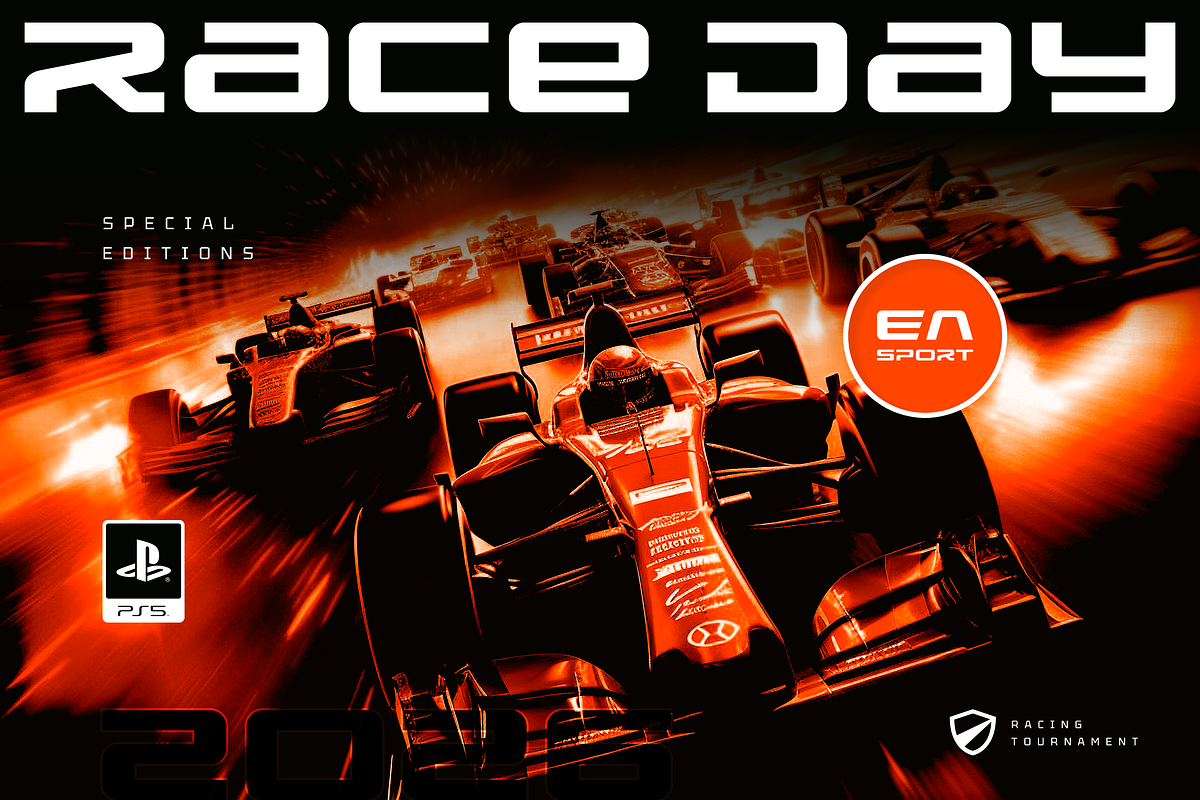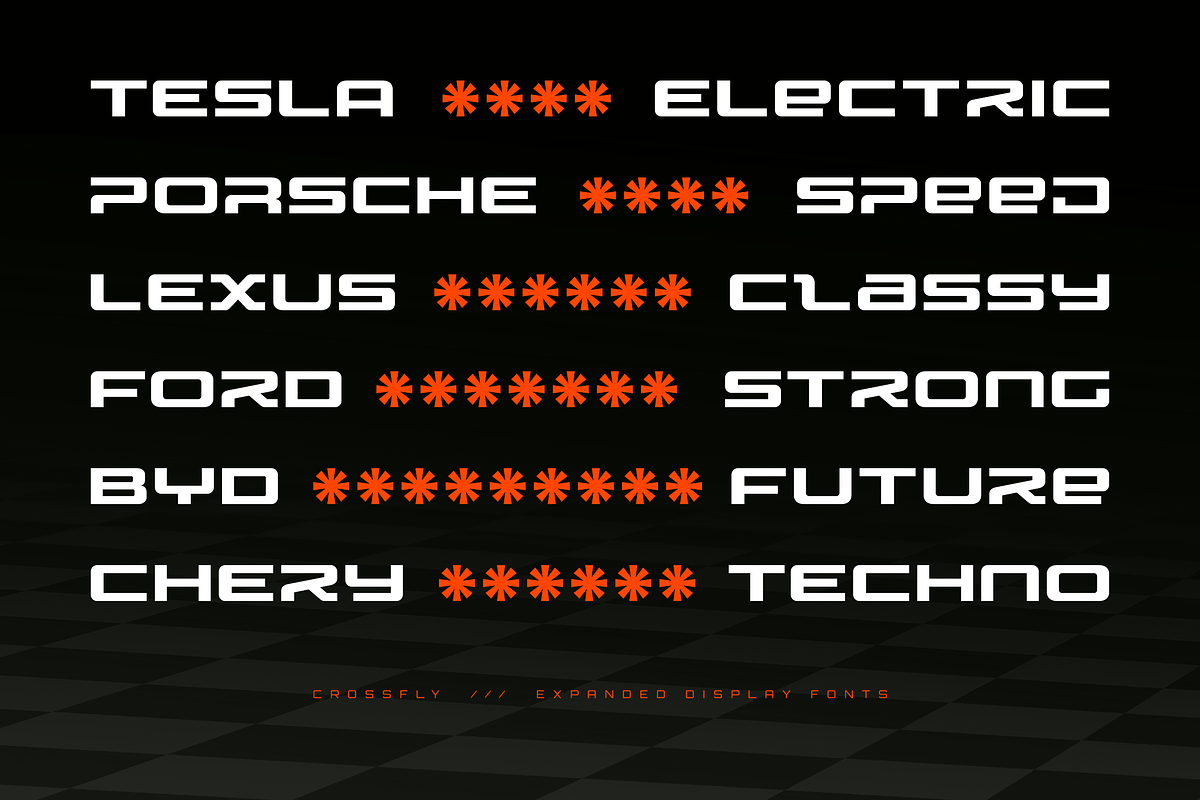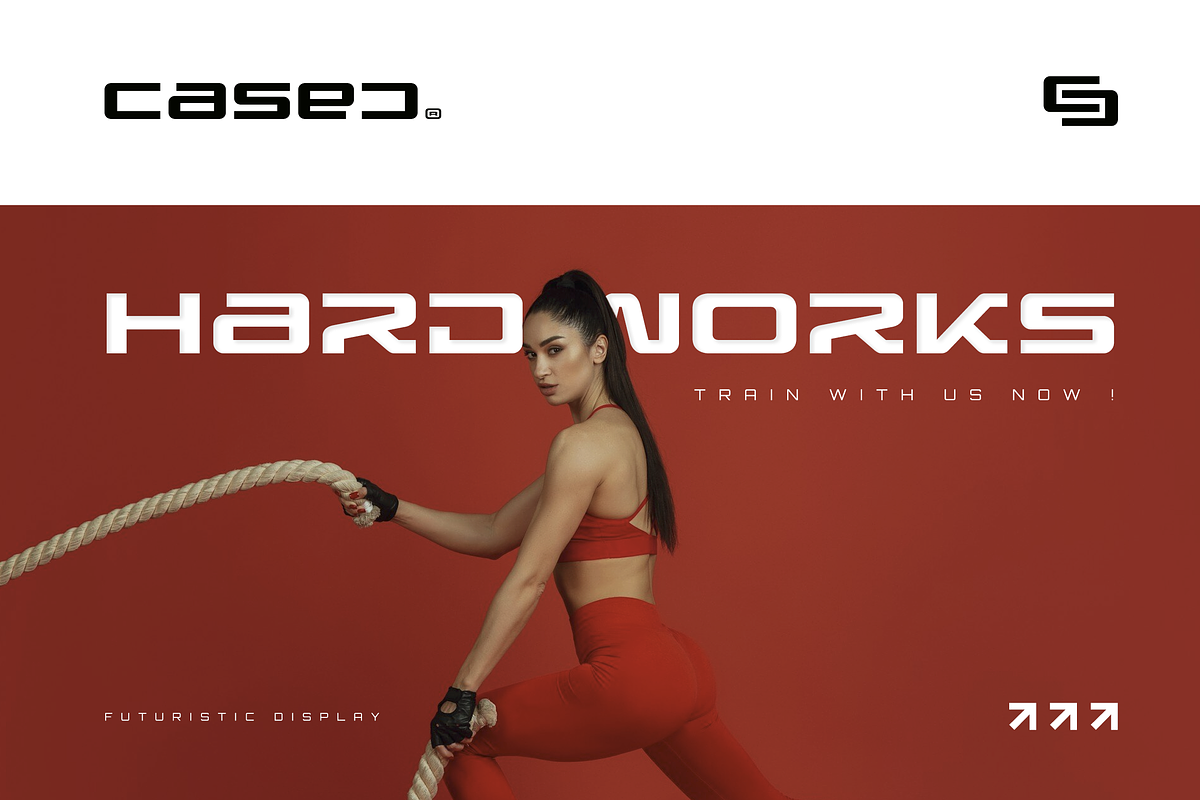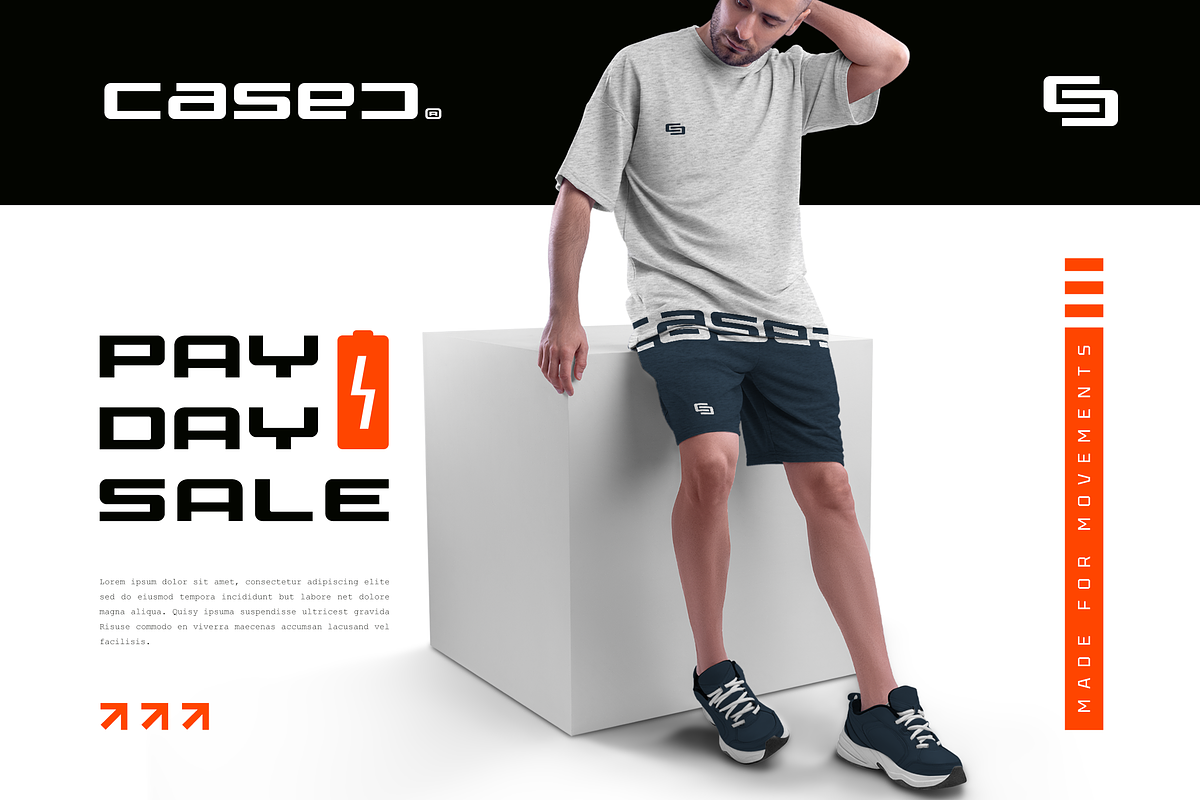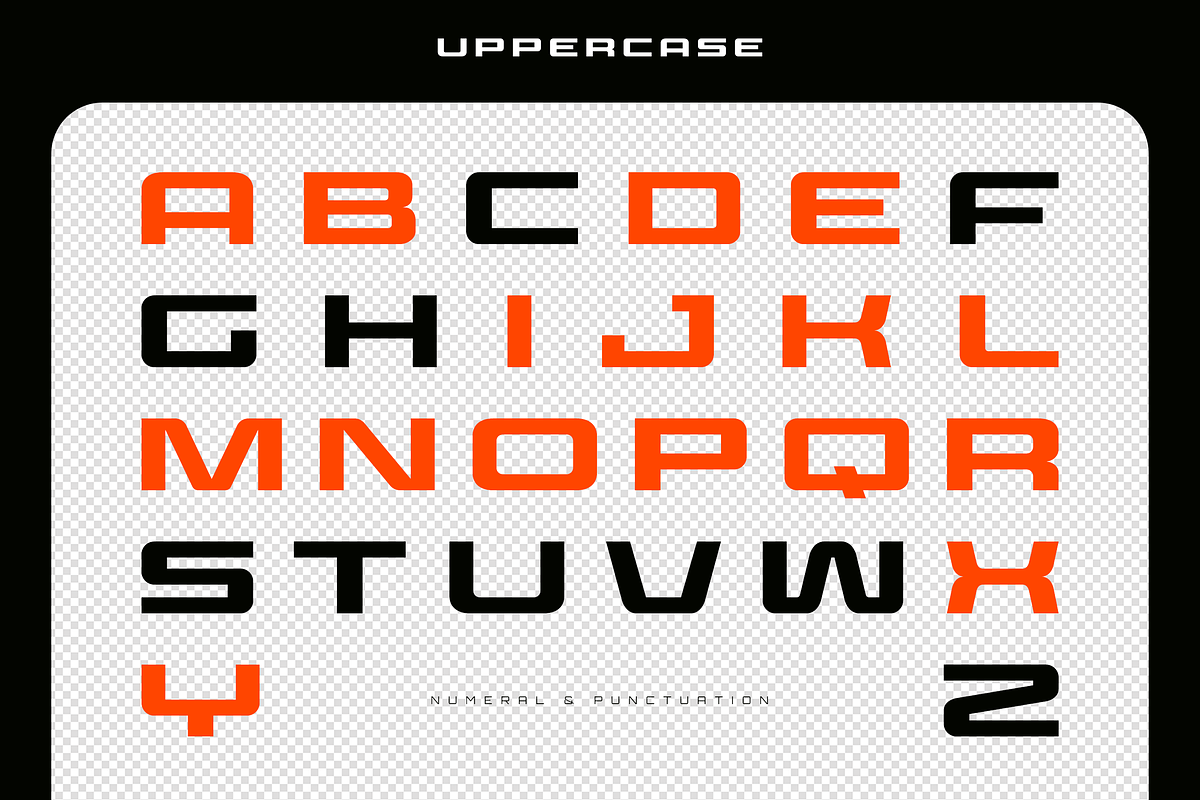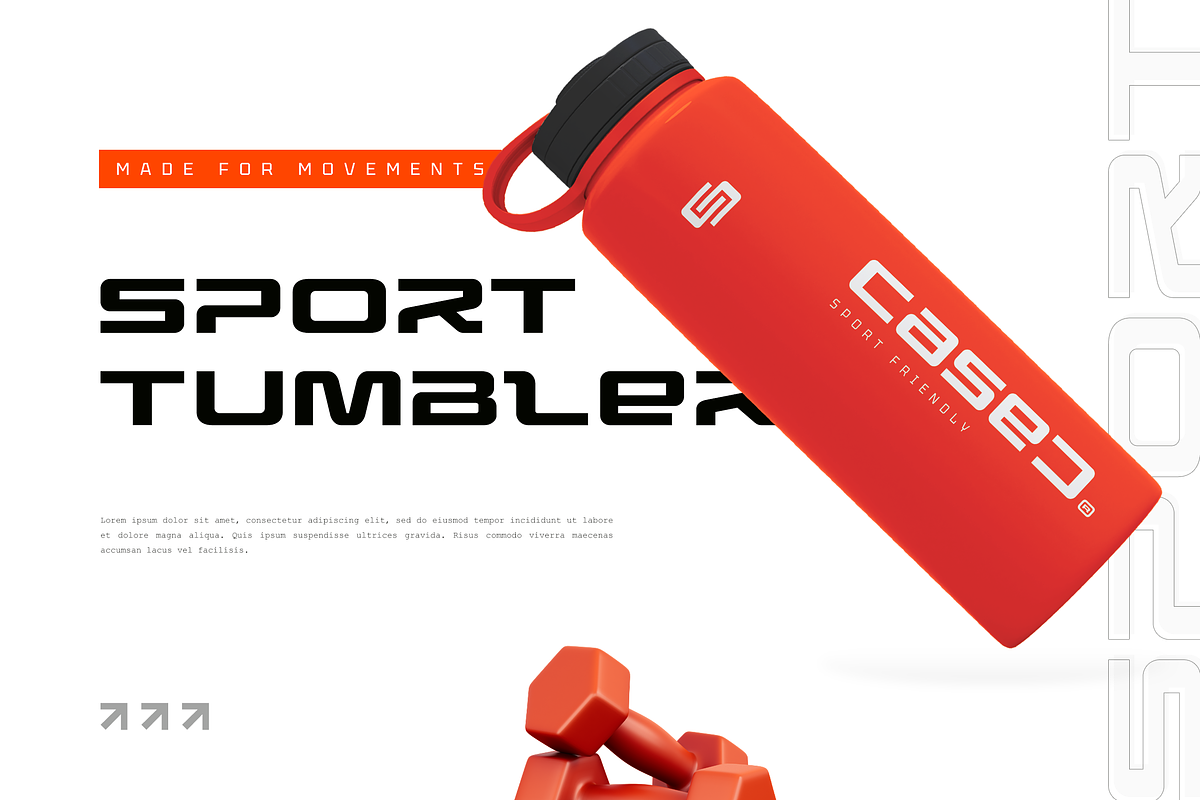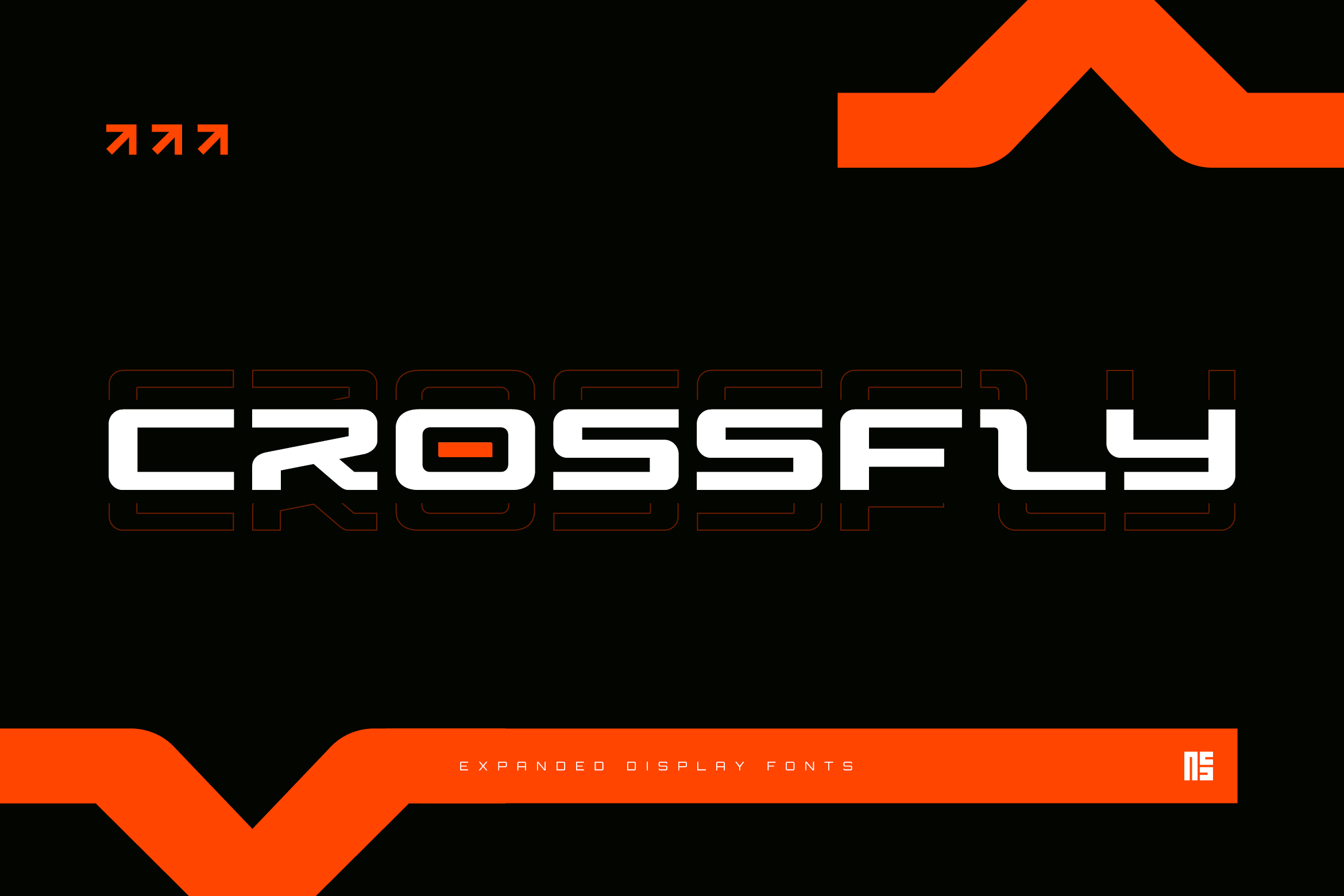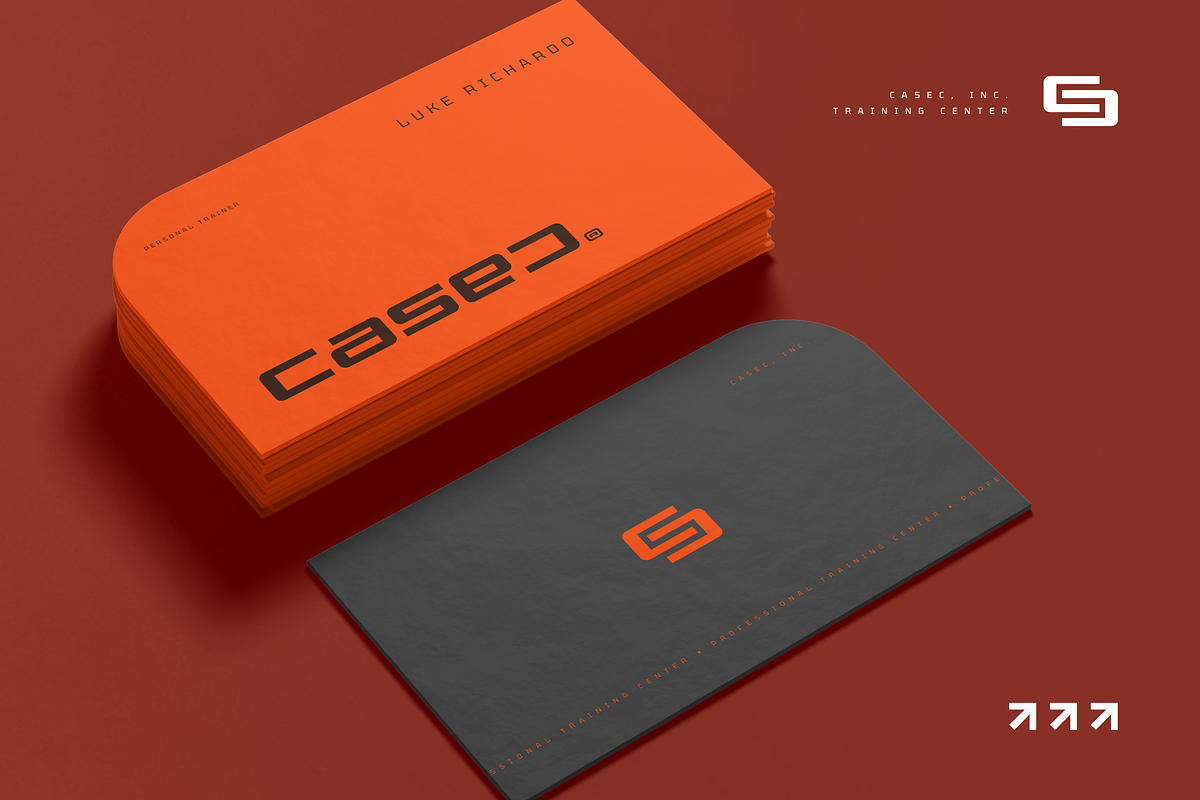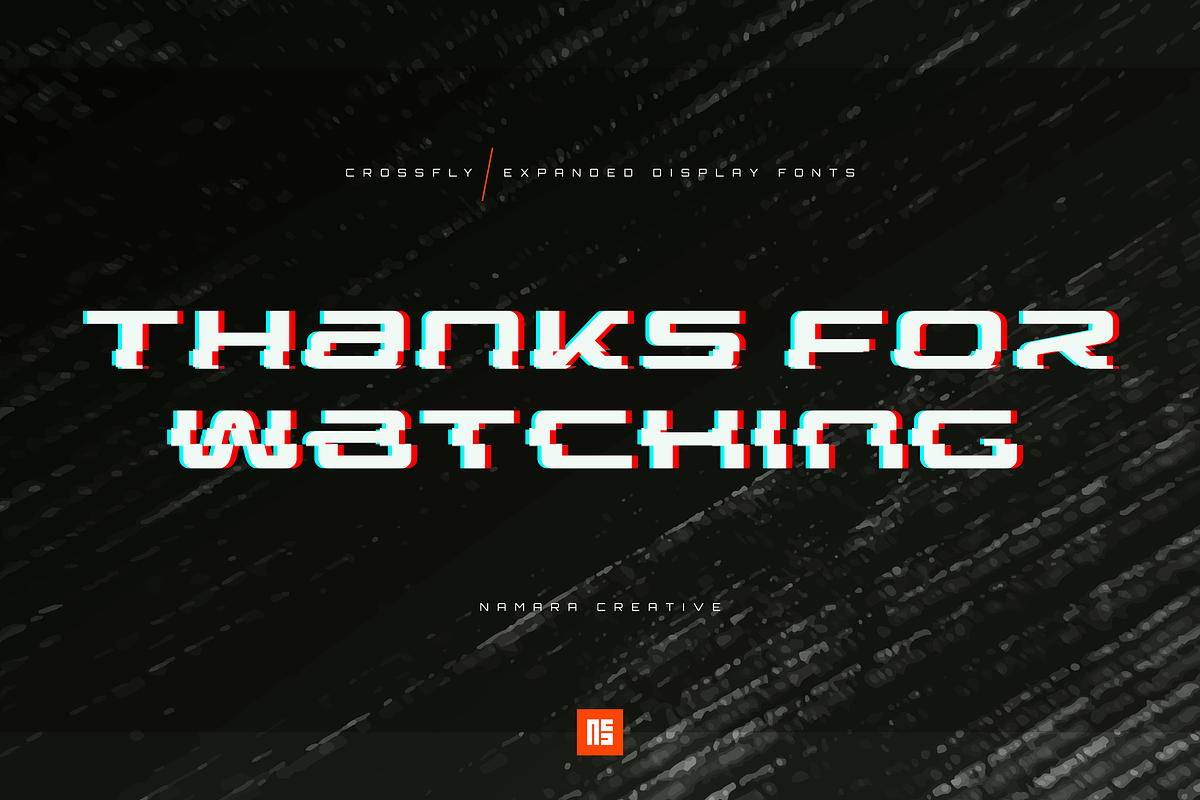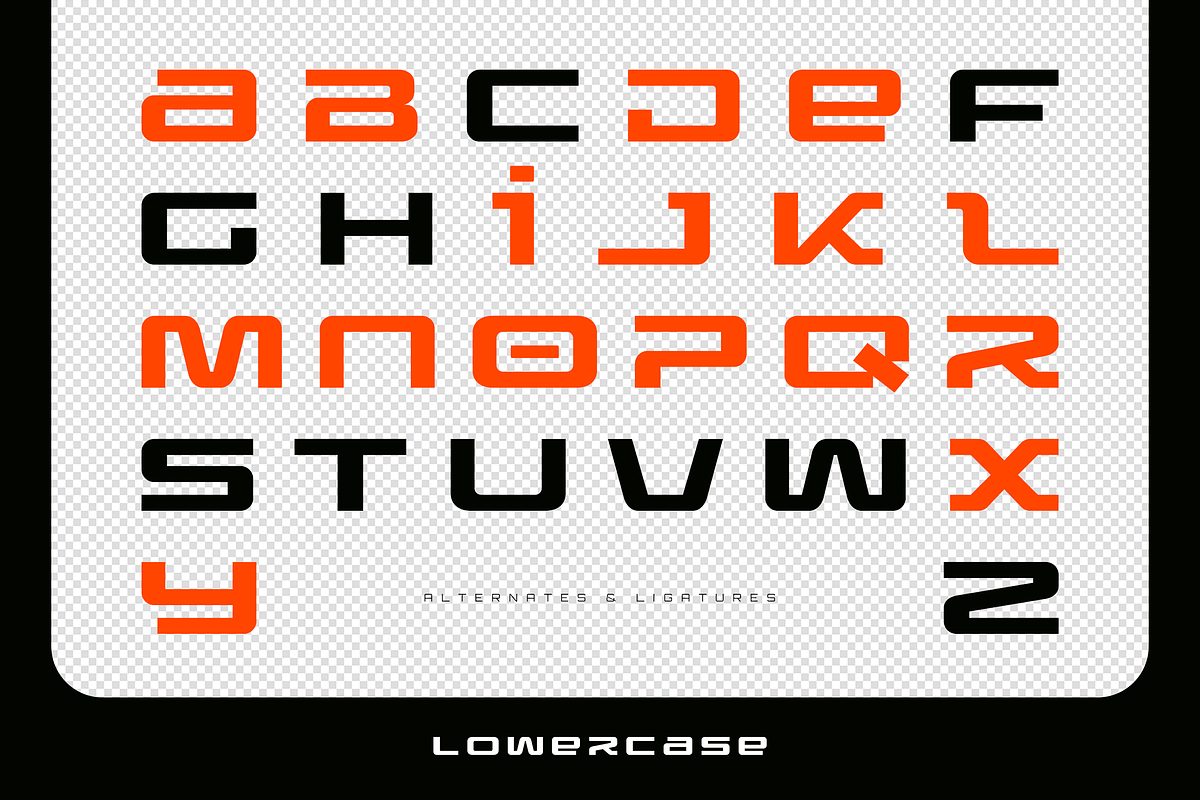
Crossfly Expanded Display Fonts
Crossfly - Modern expanded display font
An exciting typeface that captures the spirit of technology, speed, and movements. Distinctive characteristics make a great choice for gaming/sports logos, branding identity, posters, apps, or any design project that demands a futuristic and energetic.
- Modern, Sporty & Techno Wide Theme Font
- Alternates, Ligatures & Multilingual Support